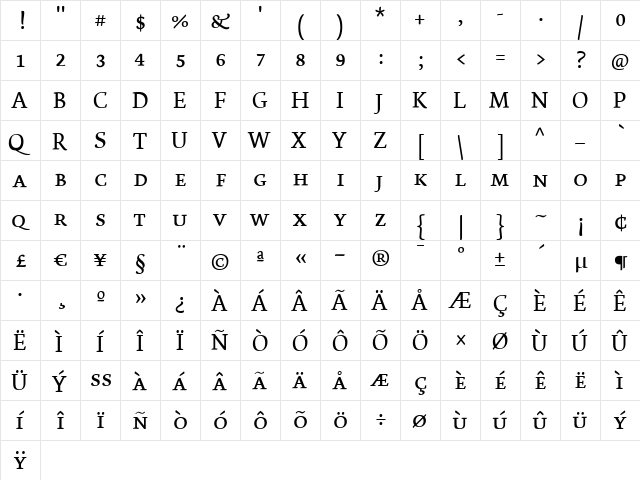
Dolly Regular
Design Context for Dolly Typeface
Dolly takes a measured approach to typography — its balanced proportions and neutral character make it a reliable workhorse for both digital and print work.